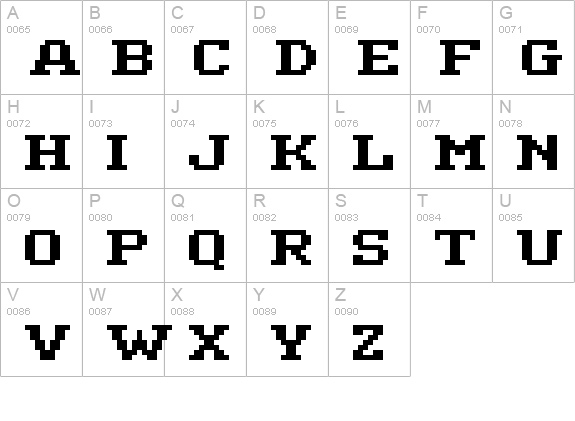
Ceriph 07_63 font is a unique and stylish typeface that exudes elegance and sophistication. Its sleek lines and modern design make it perfect for a wide range of projects, from branding to editorial design. The font's clean and minimalist appearance ensures readability while adding a touch of class to any text. What sets Ceriph 07_63 font apart is its versatility – it can be used for both headings and body text, making it a must-have for designers looking to create cohesive and visually appealing layouts. Whether you're working on a magazine spread, website design, or branding materials, this font is sure to elevate your project to the next level. Best of all, Ceriph 07_63 font is completely free to download at FontsMarket.com. This means you can start using it in your projects right away, without breaking the bank. Don't miss out on the opportunity to add this stunning font to your collection and take your designs to new heights. Download Ceriph 07_63 font today and let your creativity shine!